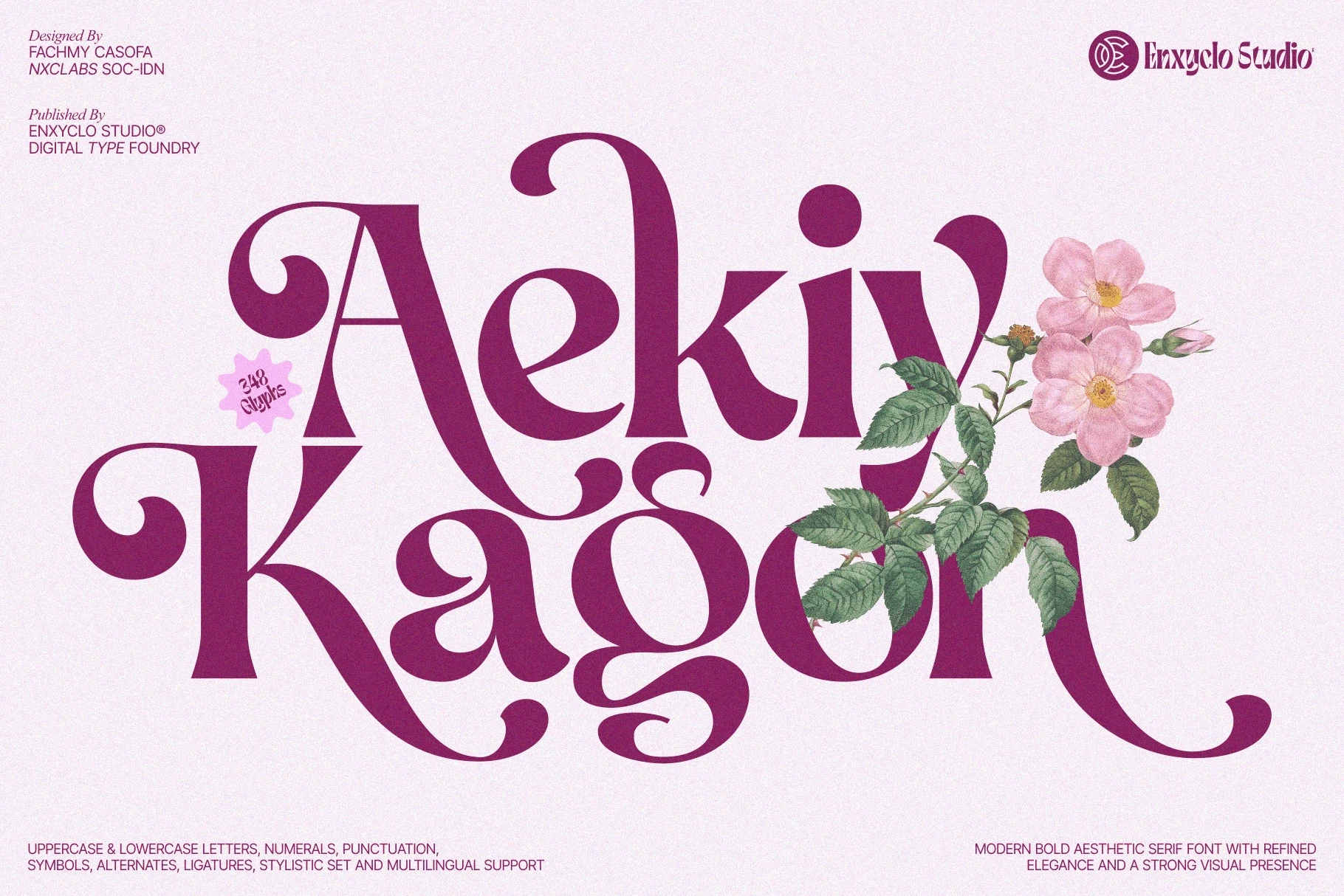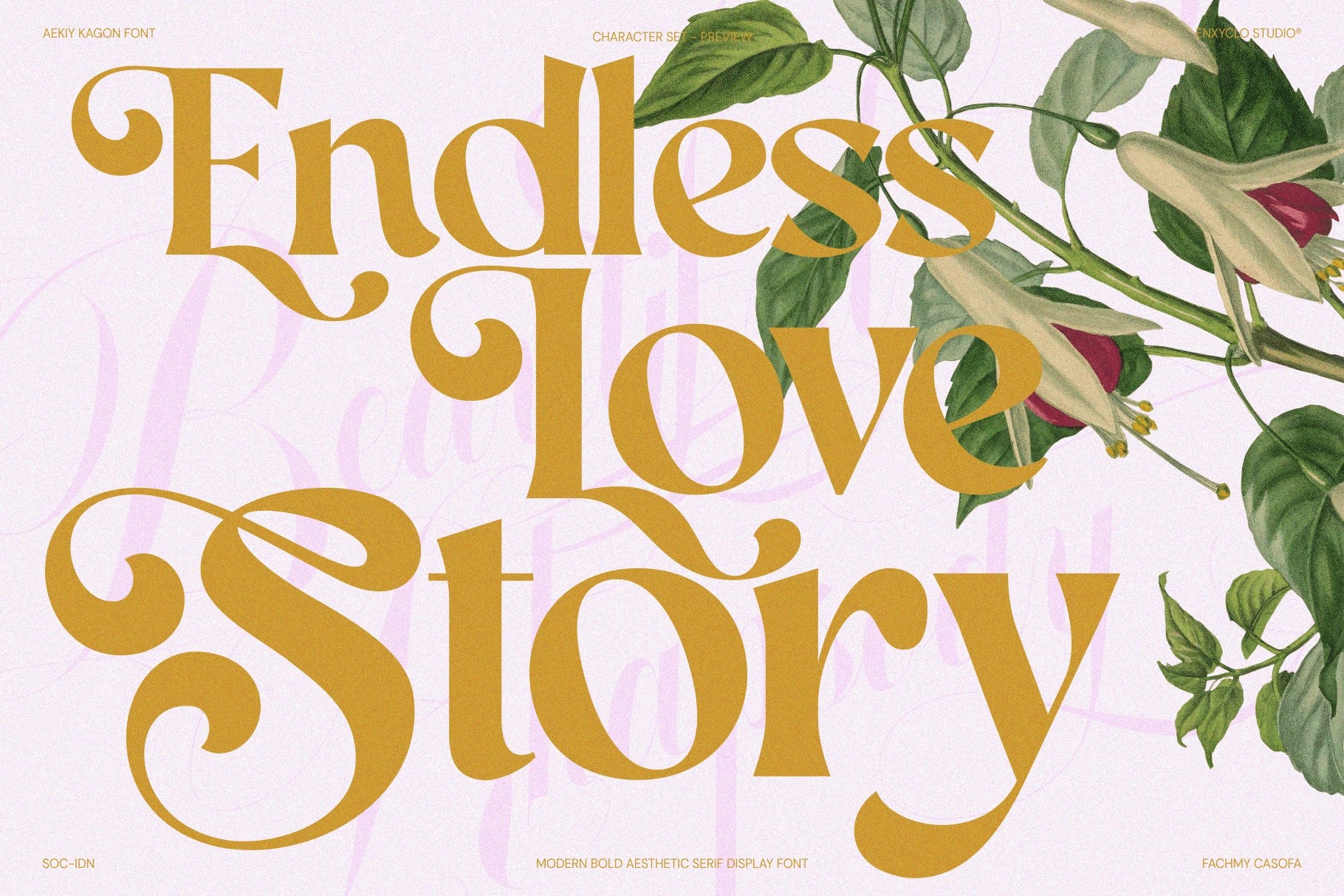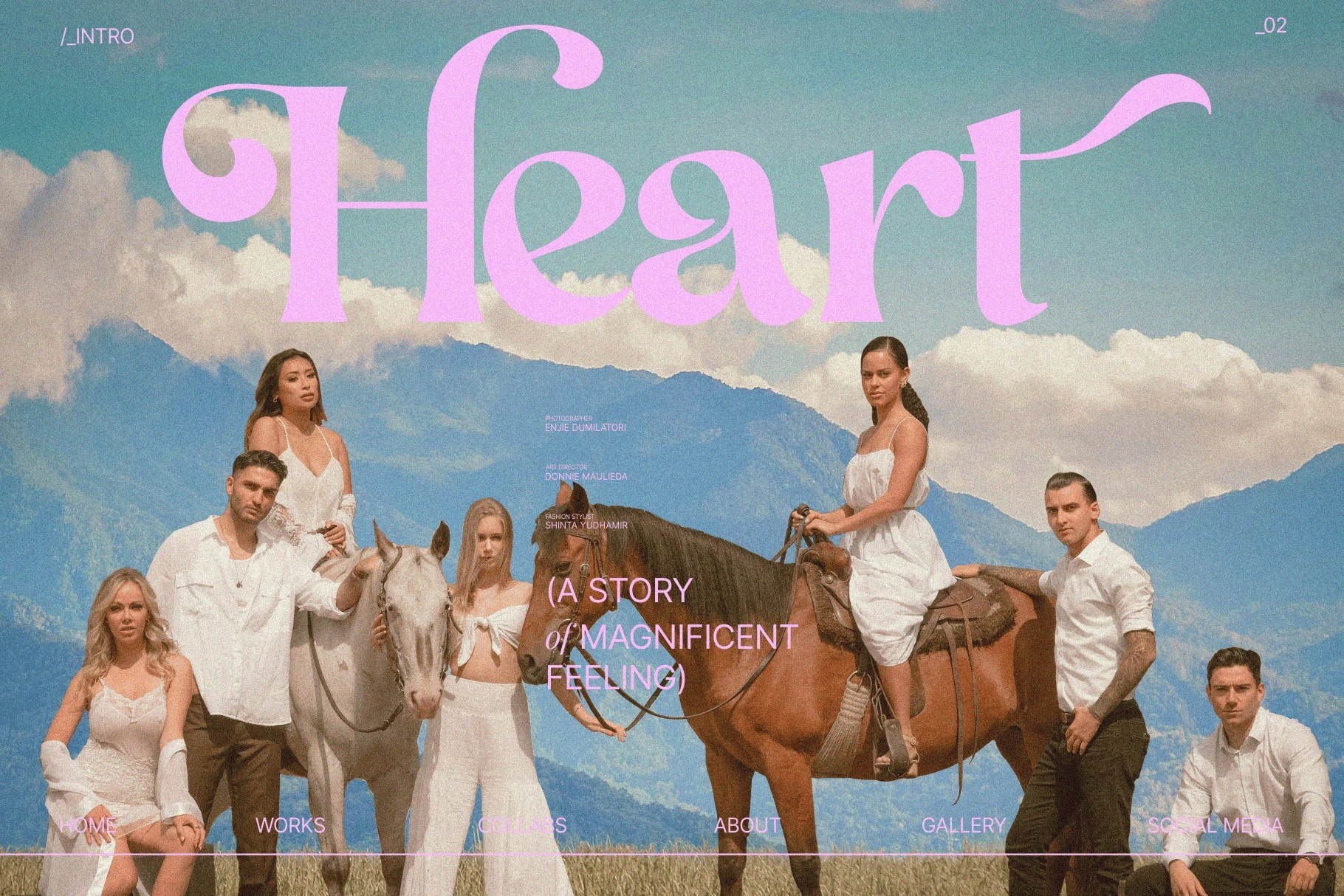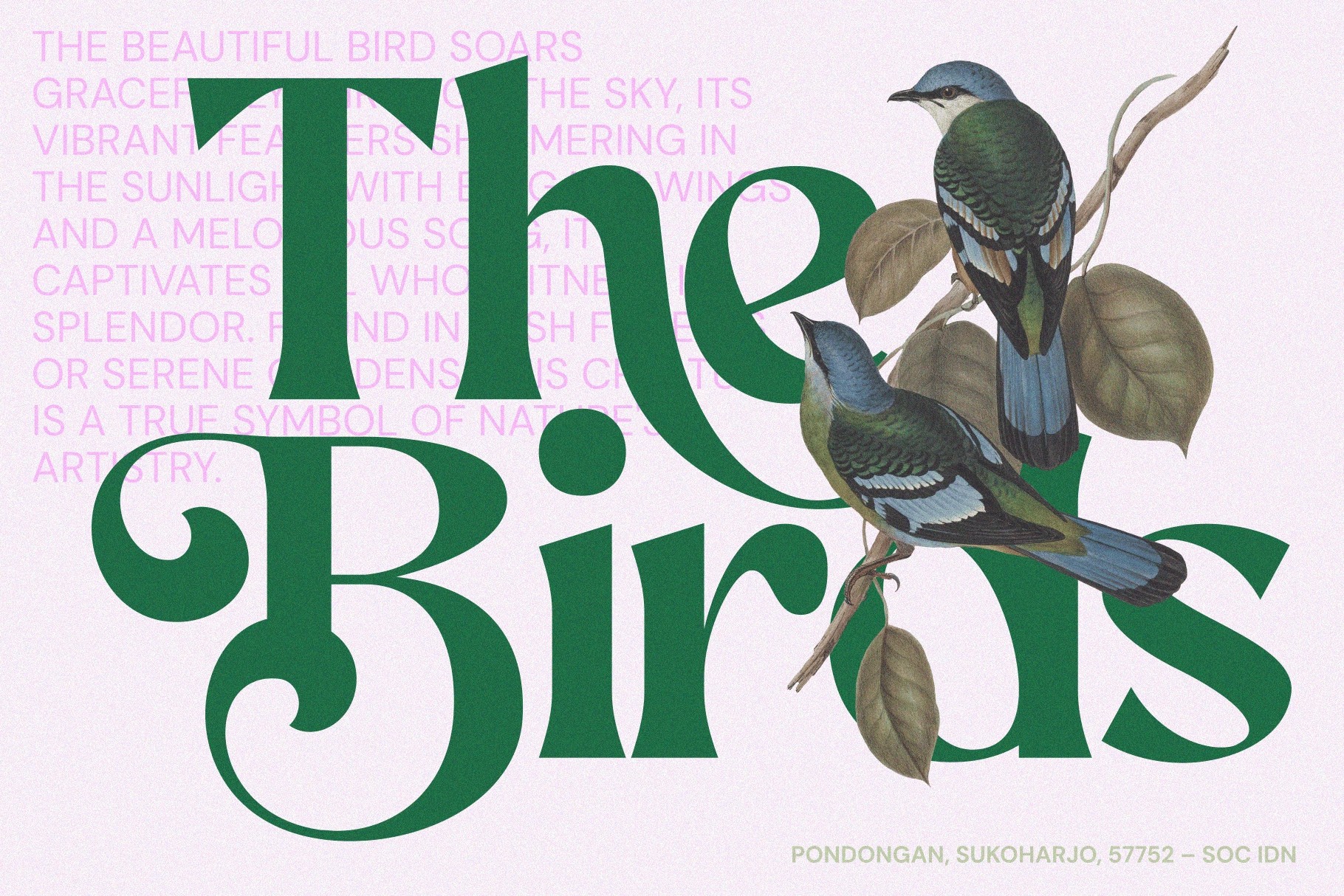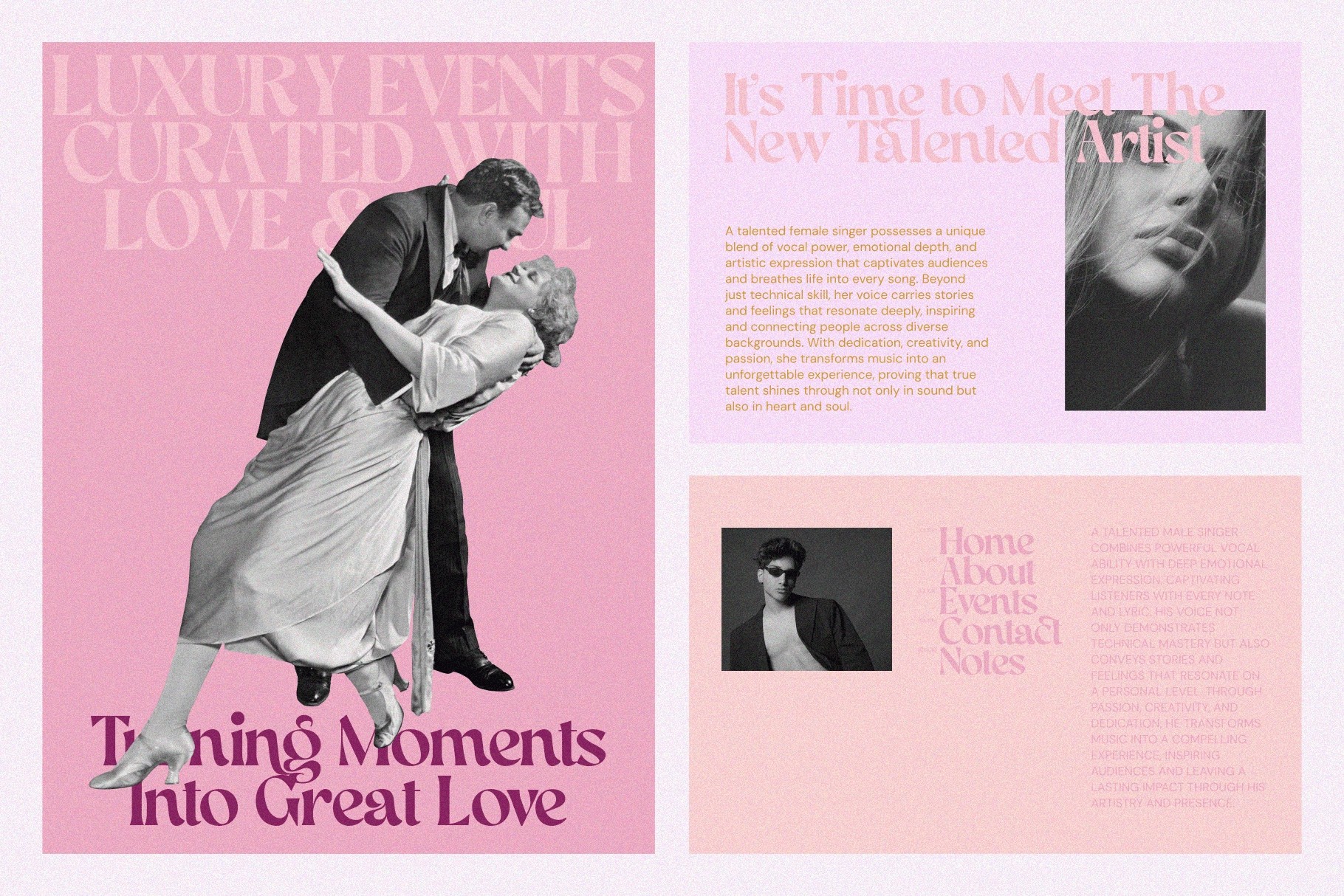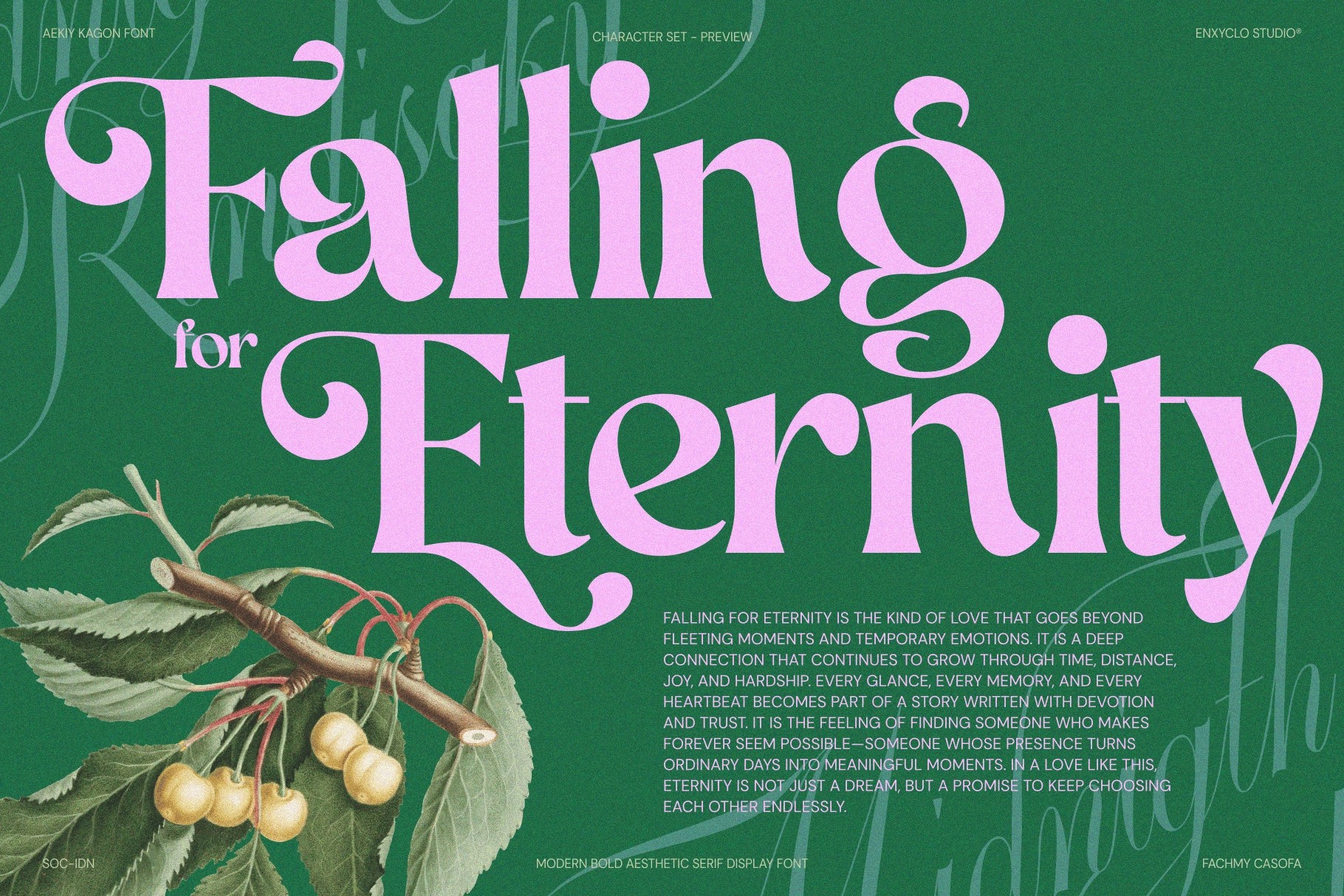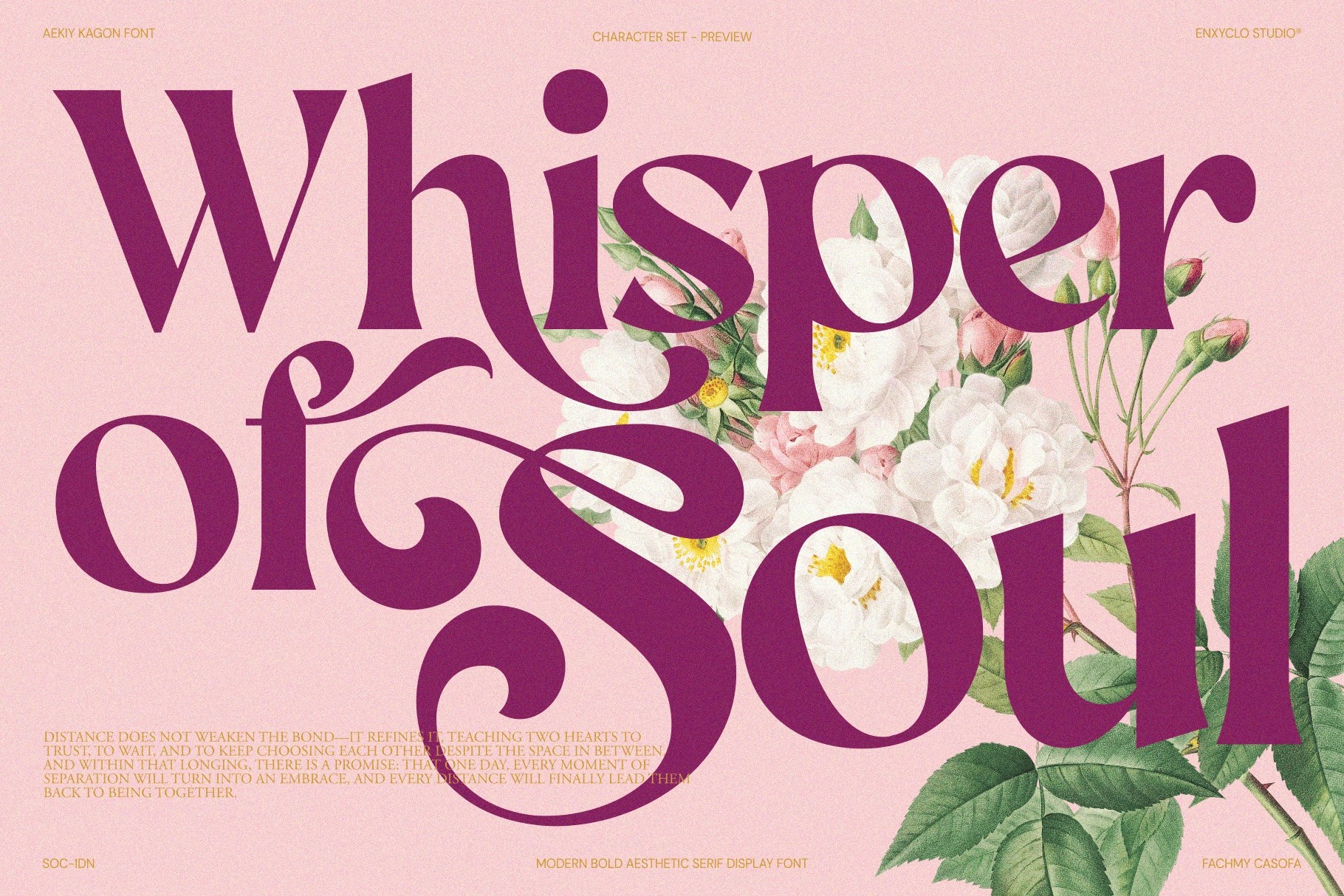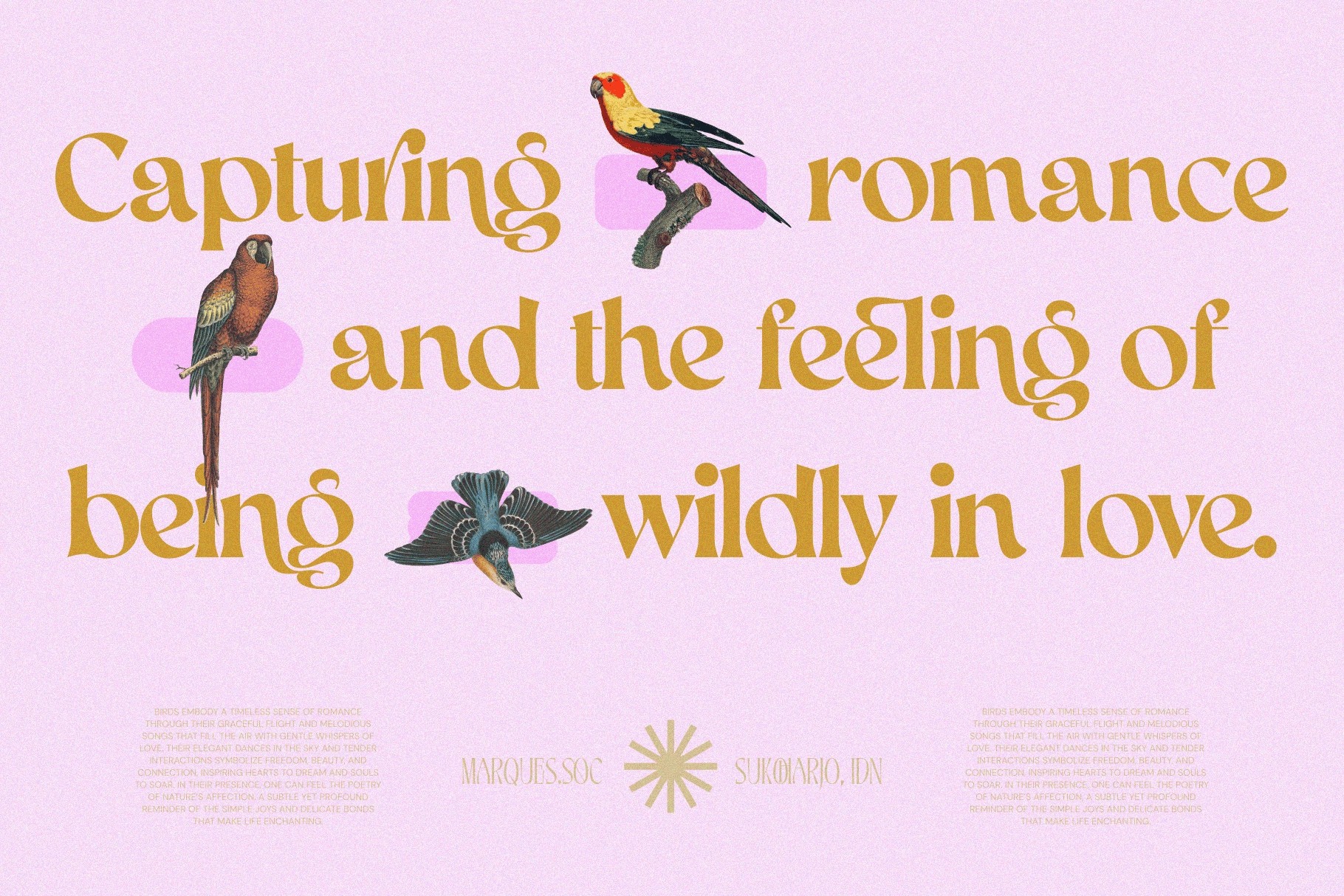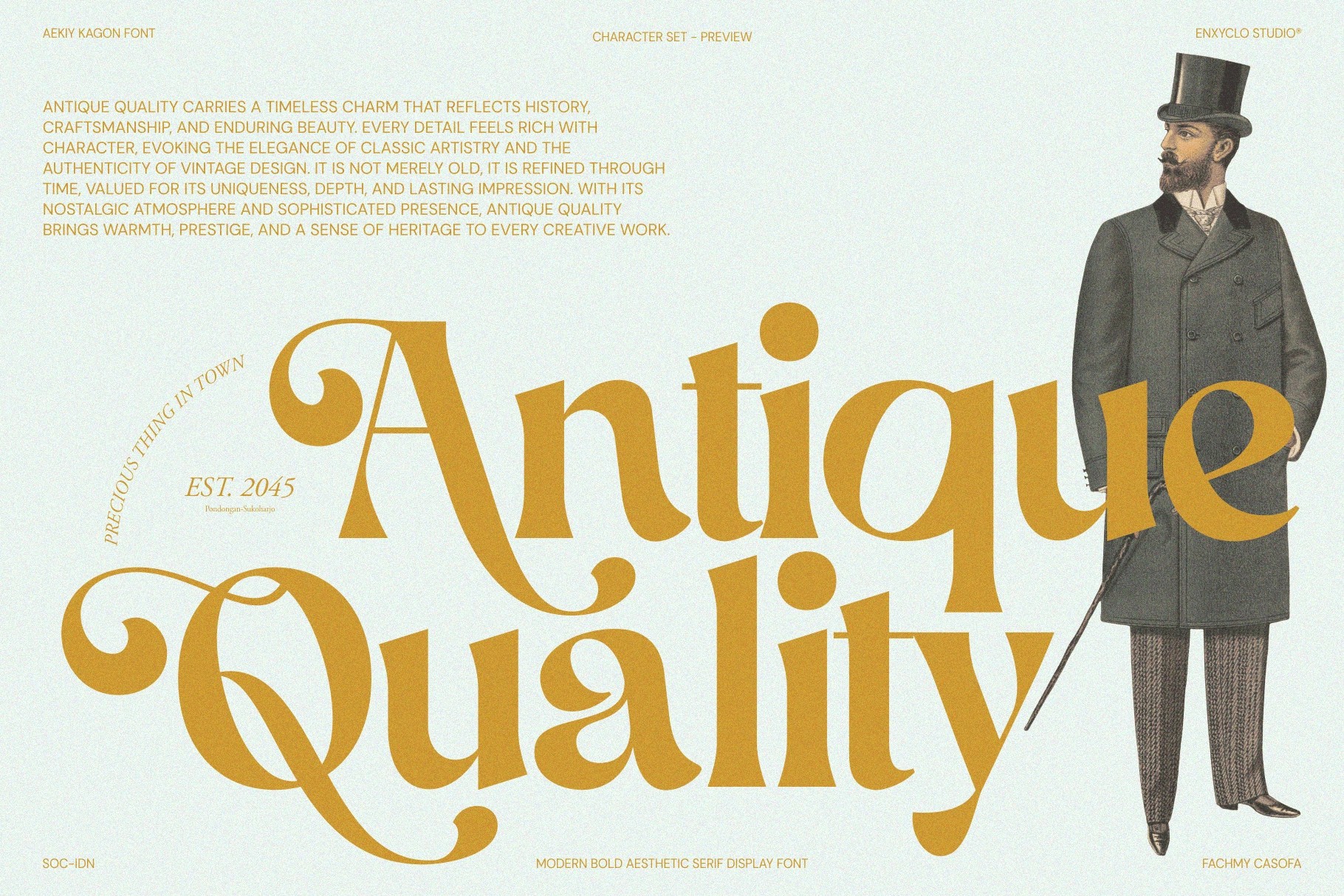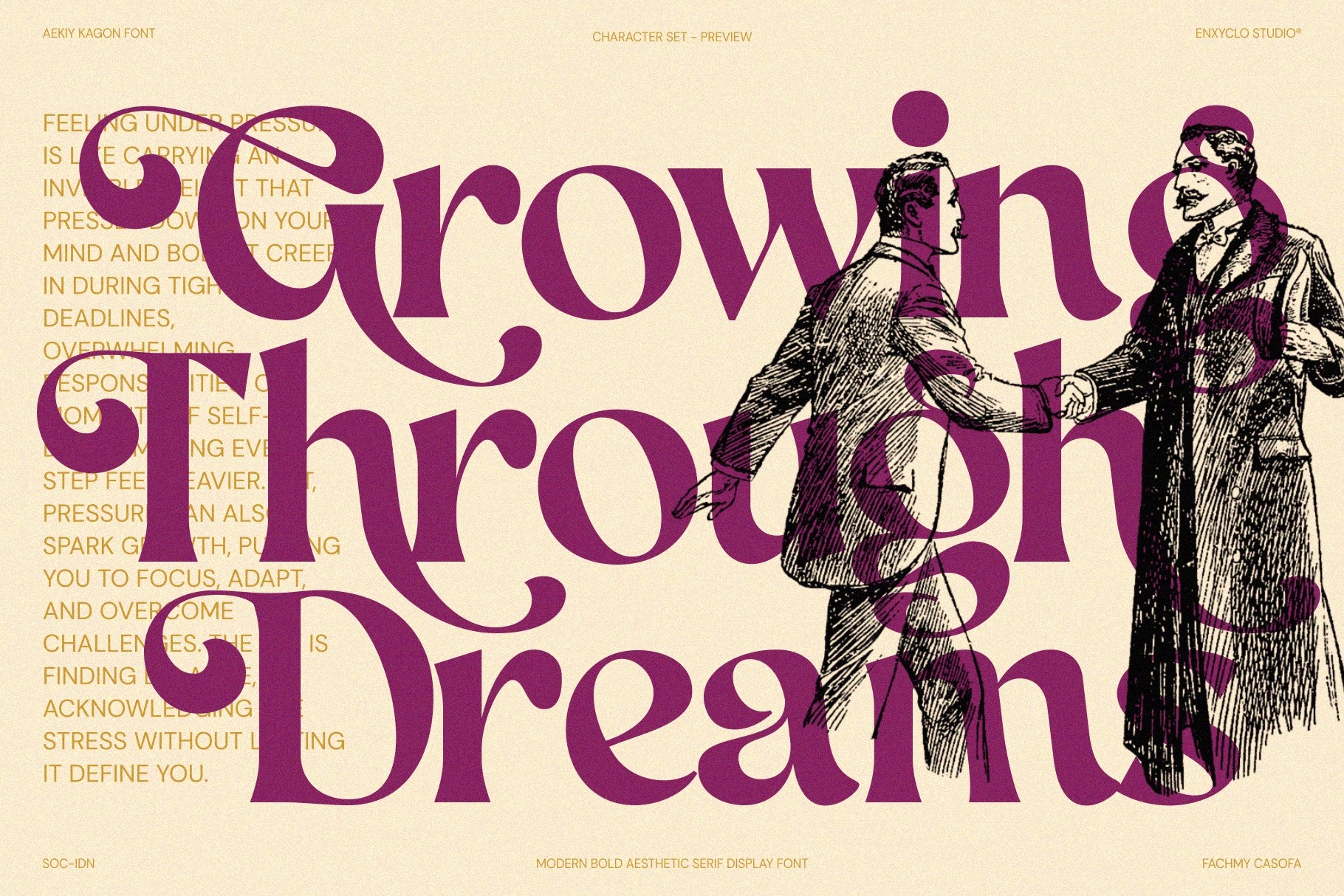
AEKIY KAGON — Elegant Swash Serif Font
This luxury serif is all curves with a raised eyebrow: bold stems, sharp contrast, and ornamental swashes that make short words look like custom lettering. Its decorative alternates and ligatures add a graceful rhythm to headlines, while the sturdy serif base keeps the type clear, composed, and ready for high-end visual work.
Aekiy Kagon is made for designs that need romance without becoming sugary. Use it for perfume labels, fashion logotypes, boutique packaging, skincare campaigns, wedding suites, magazine titles, jewelry branding, salon identities, social media quotes, event stationery, product labels, and more. The result is expressive, polished, and slightly theatrical — in the best possible way.
• Numerals, punctuation, currencies & symbols
• Alternates
• Stylistic sets
• Ligatures